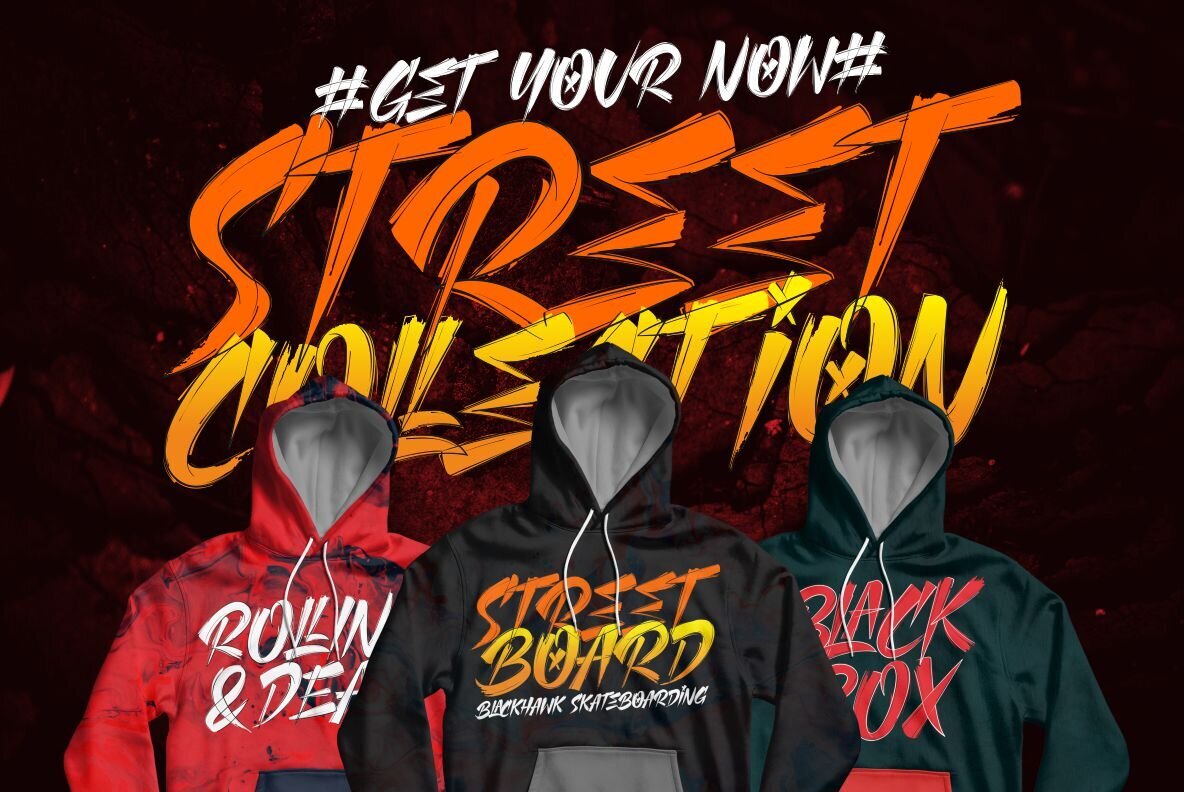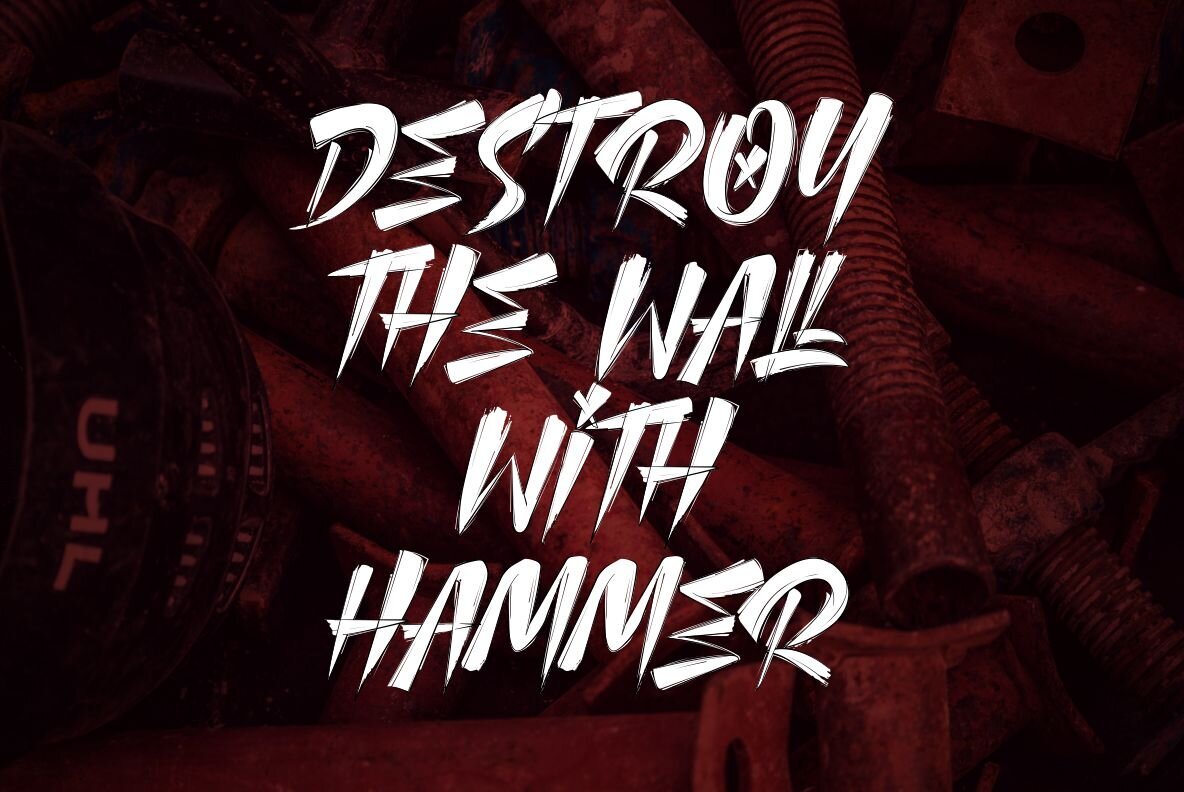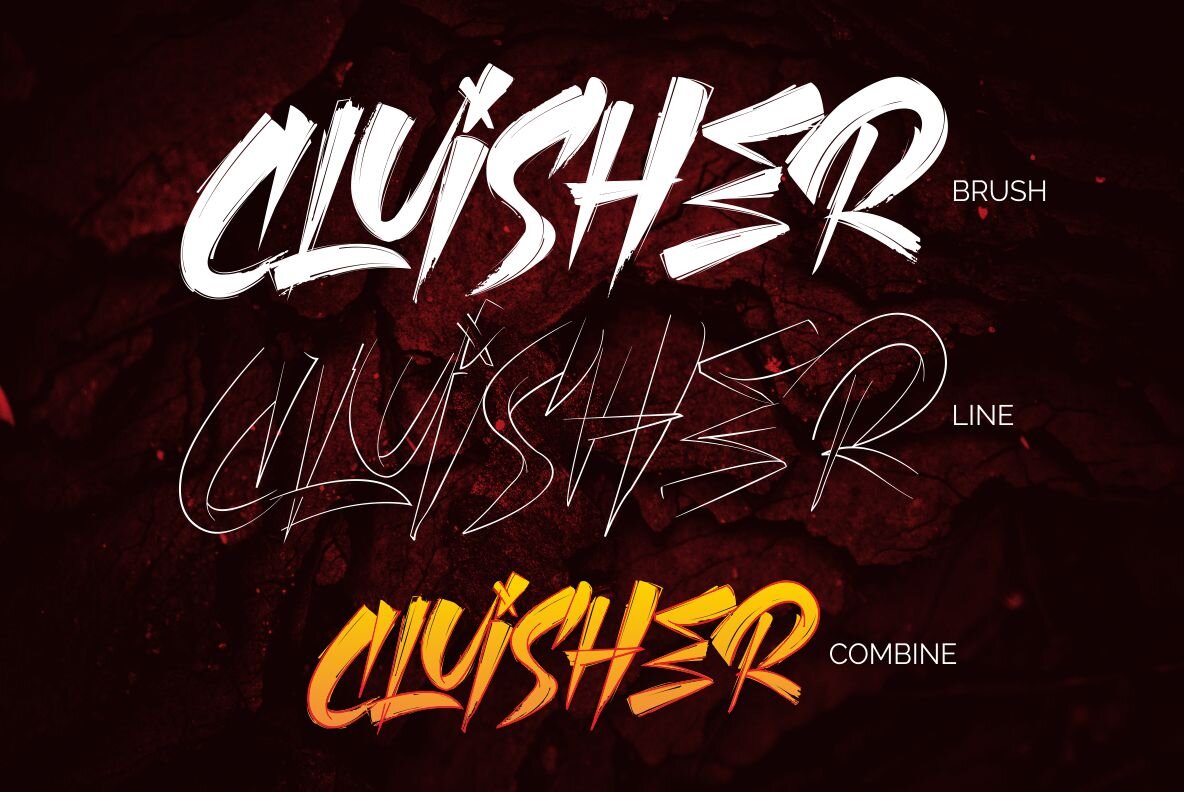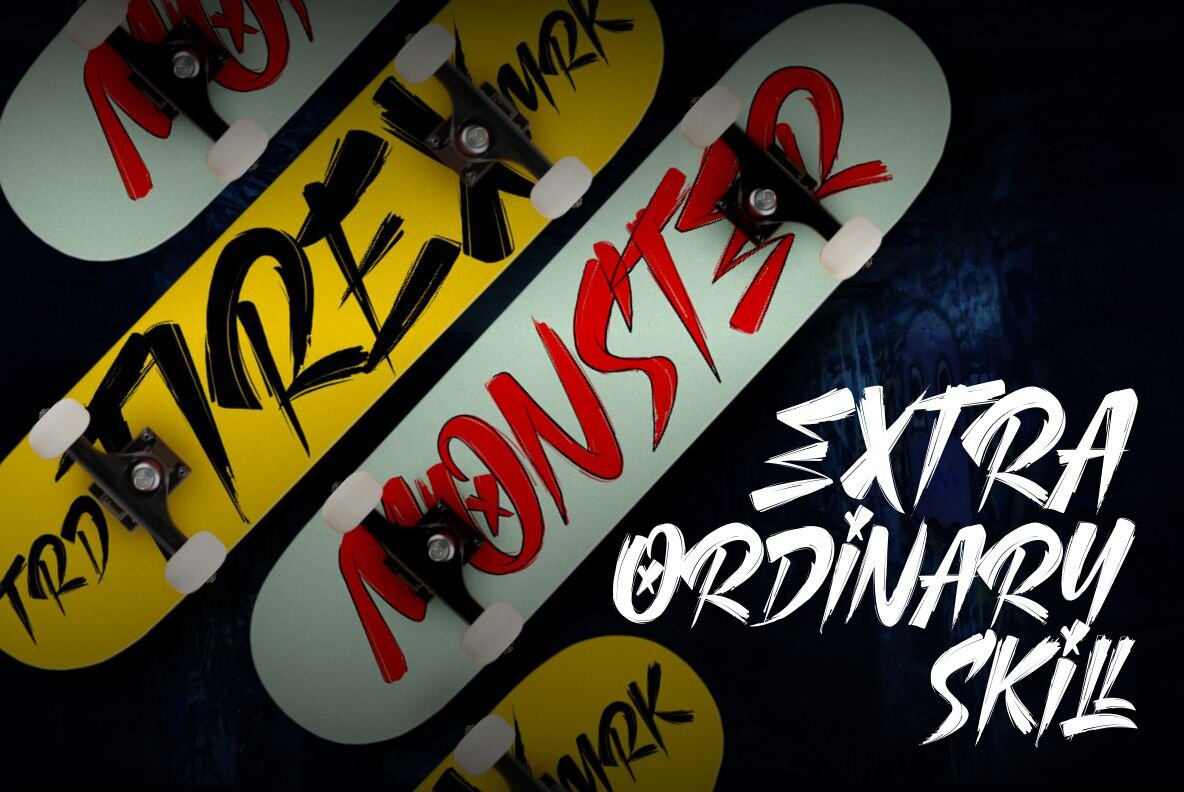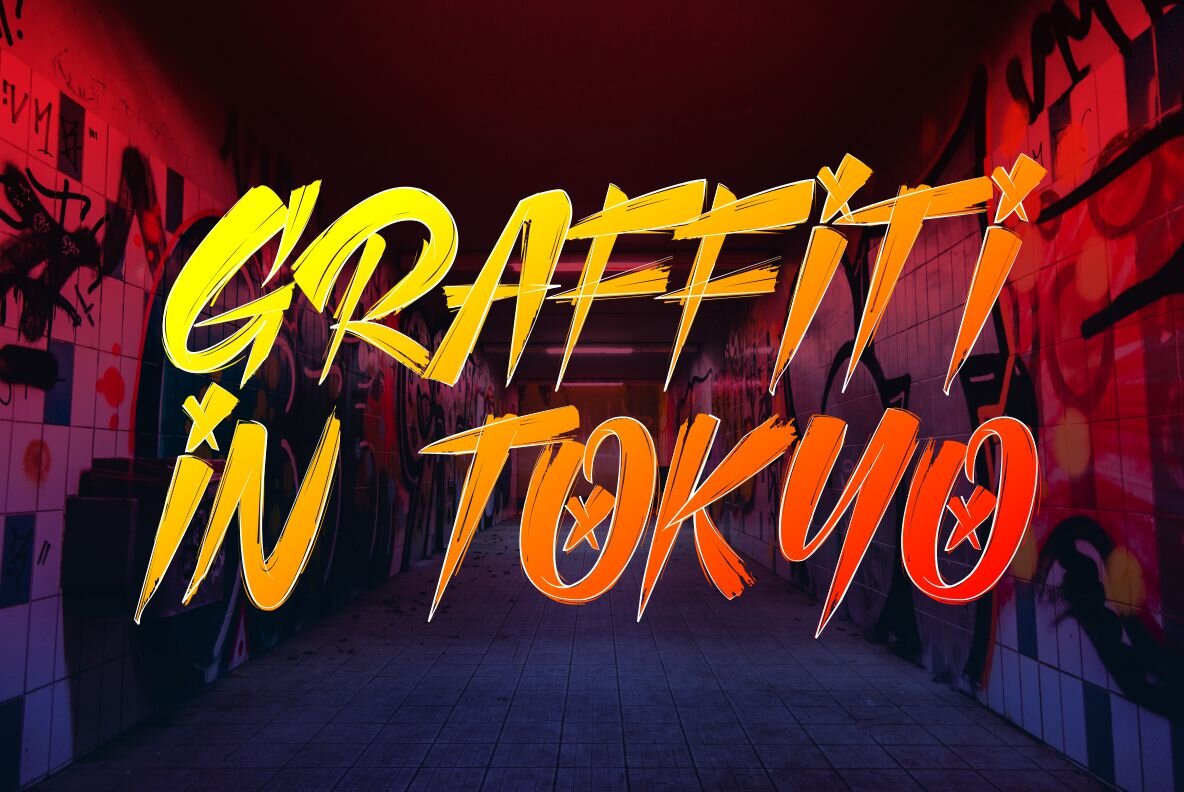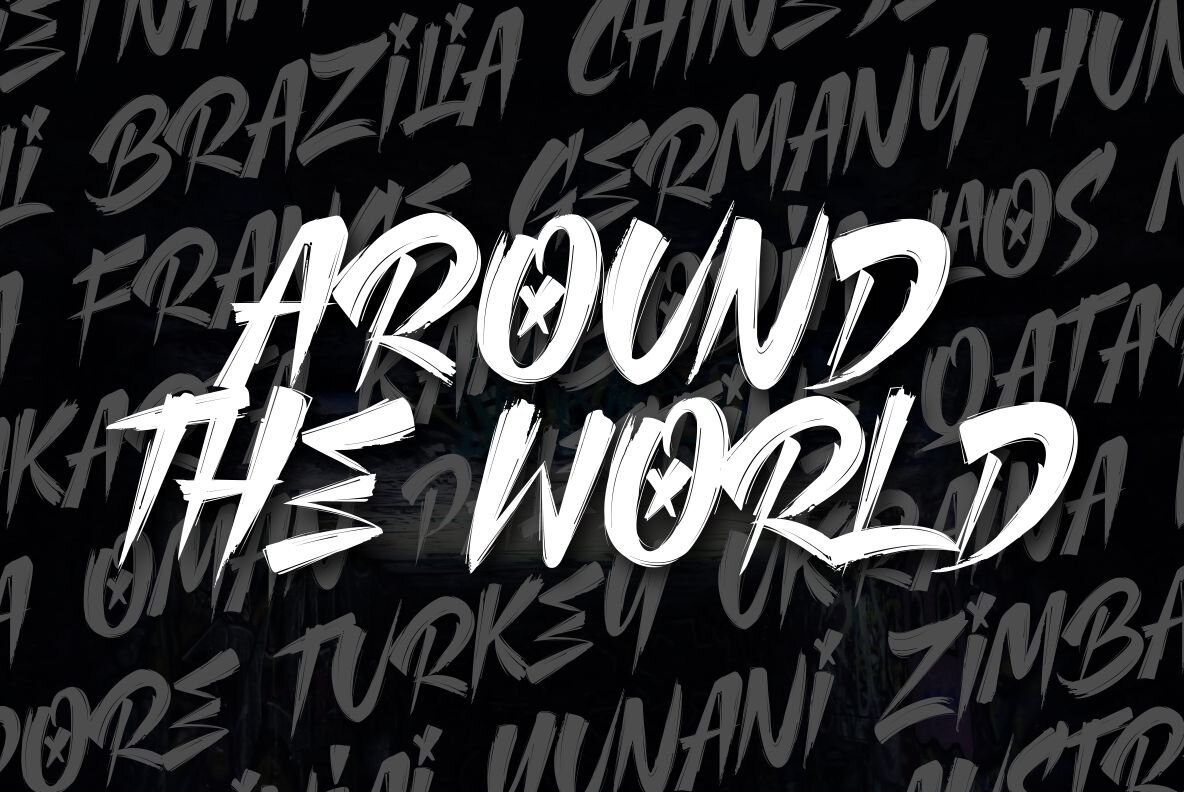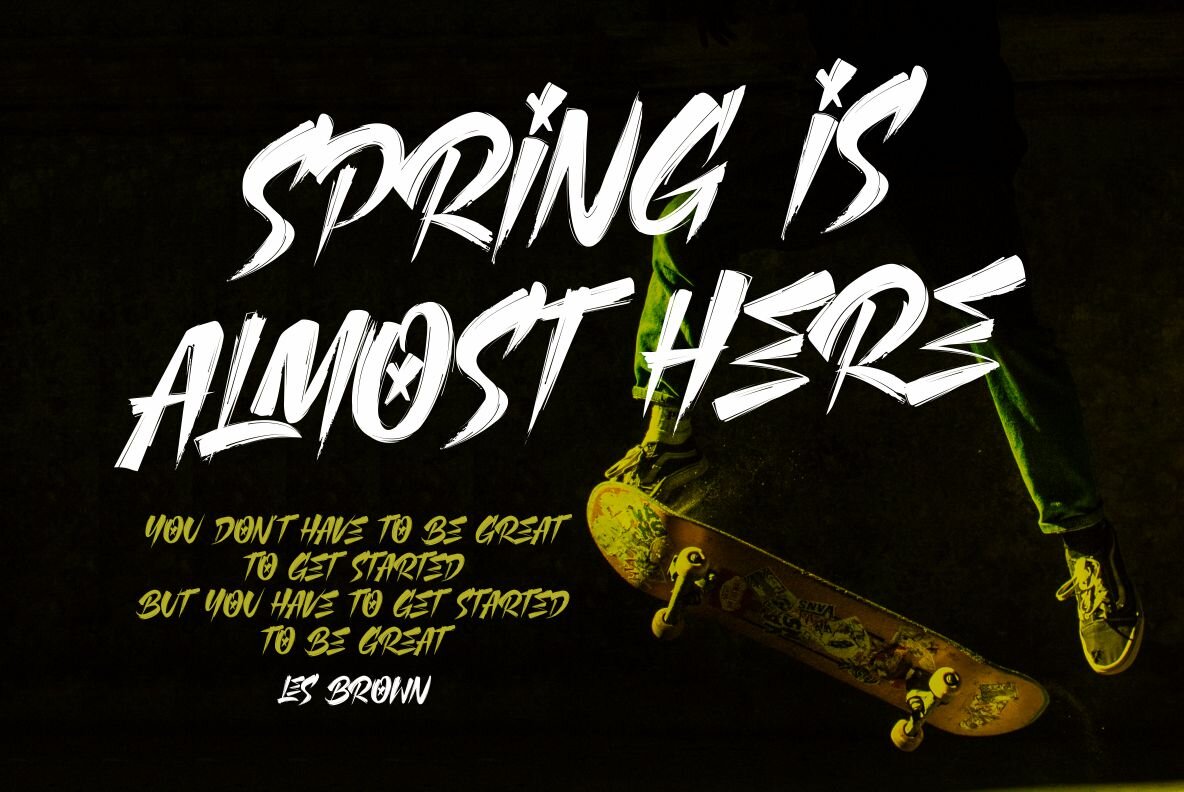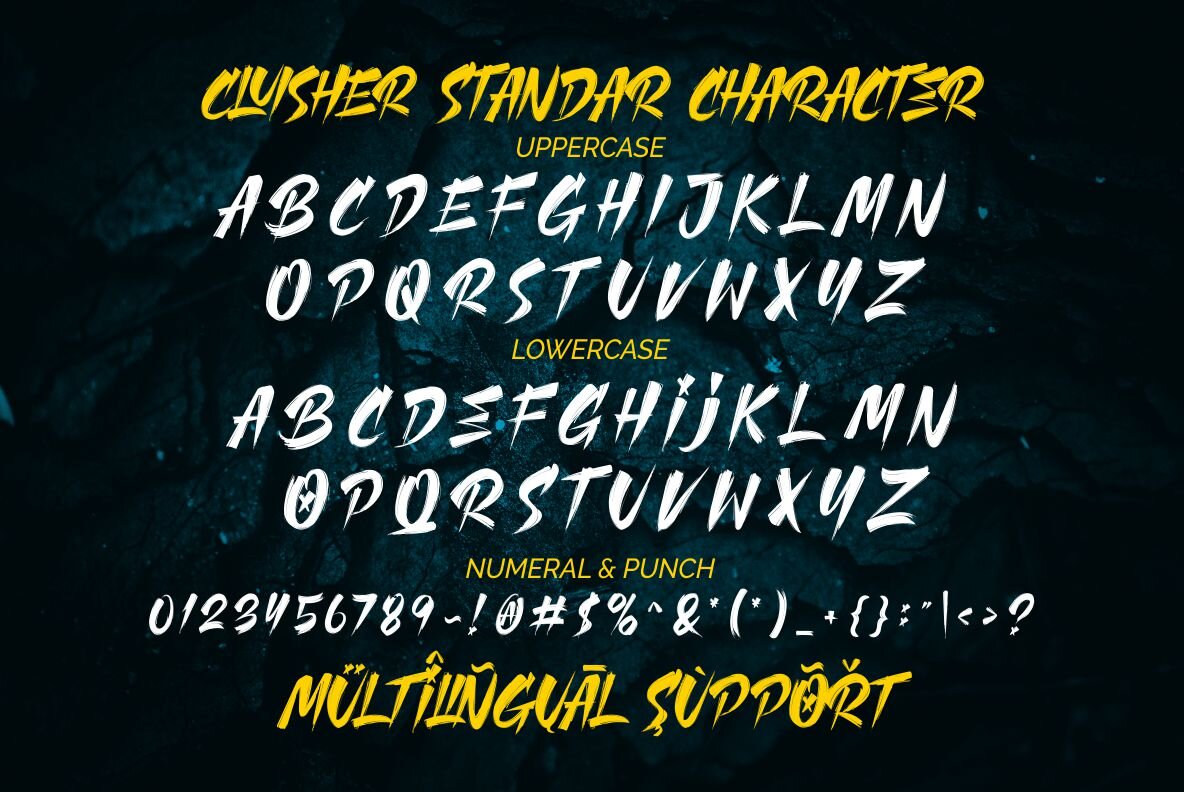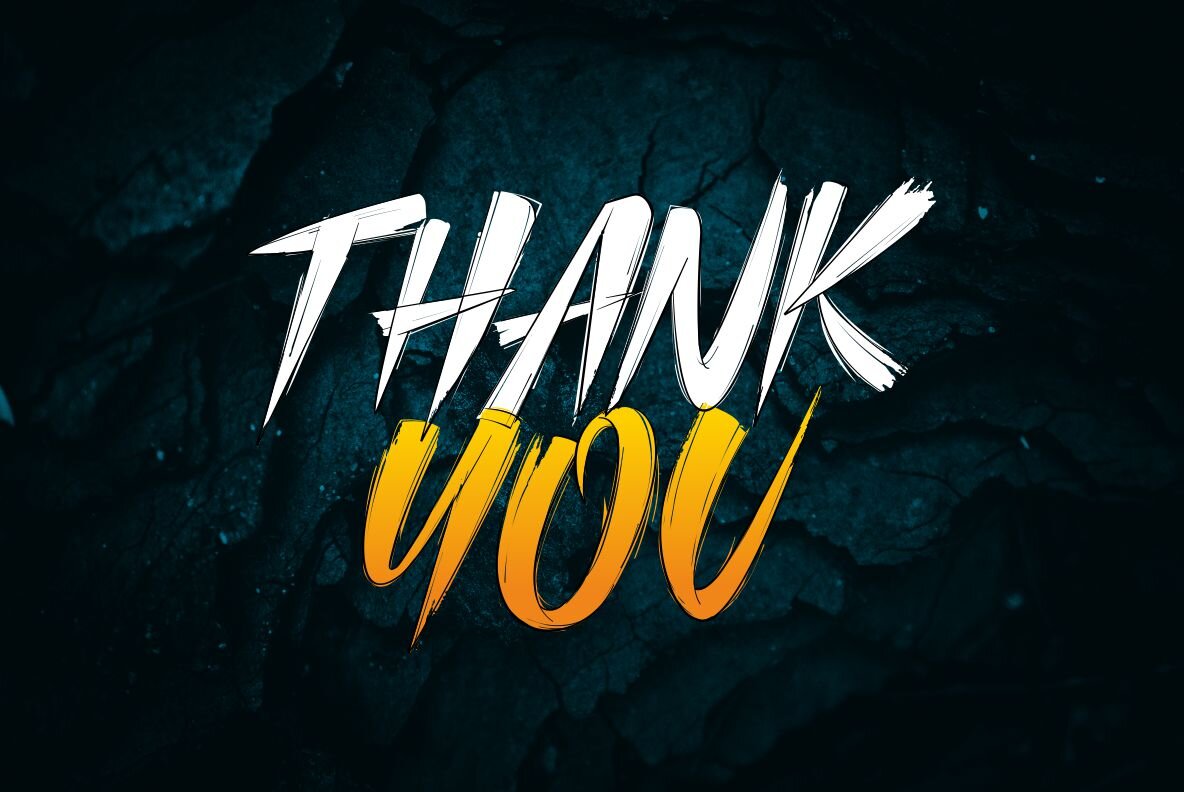
Cluisher Brush Font
CLUISHER BRUSH
CLUISHER BRUSH LINE
Cluisher Brush is a distinctive font that infuses creativity and energy into any project. As a brush-type font with customizable outlines, it offers flexibility in color adjustment, ensuring it fits perfectly with diverse design palettes. Ideal for amplifying visual impact, Cluisher Brush brings a sense of vibrancy and dynamism to your work.Cluisher Brush: A Bold Choice for Dynamic Designs